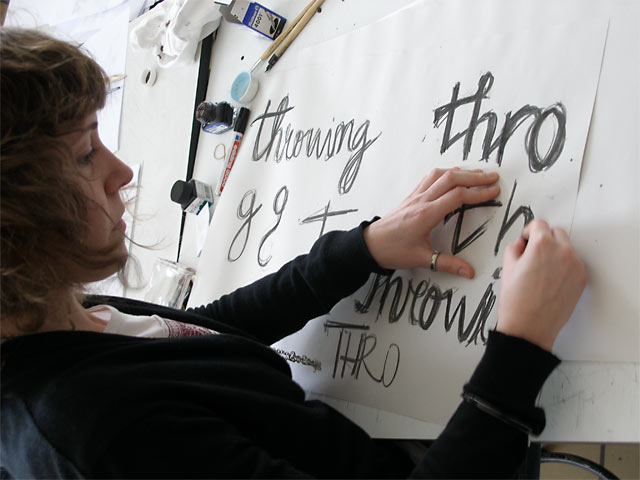
![]() Day 1 ![]() Judo has its own rules. Before gaining the knowledge of silent typographic judo, you first have to gain typographic knowledge. Practice, practice. Whole day long. Acquire the basic typographic skills of rhythm, construction, balance and also style. By sketching, sketching and more sketching. And tomorrow... even more sketching and gaining experience before the real battle starts. ![]()